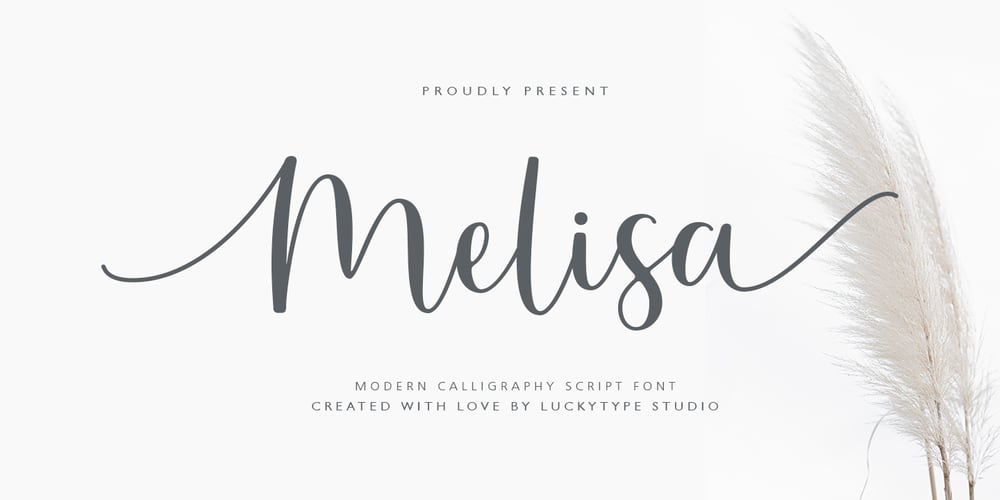
Melisa Script
Melisa Script font
Melisa Script Font Family was designed by Muhammad Fajar and published by Lucky Type. Melisa Script contains 1 styles and family package options. Introduce the latest modern calligraphy font Melisa Script which features a starting and ending swashes. Melisa Script has some beautiful ligatures for your pretty designs. Melisa Script is perfect for wedding stationery, feminime logos, branding and more!Thank you so much for watching.